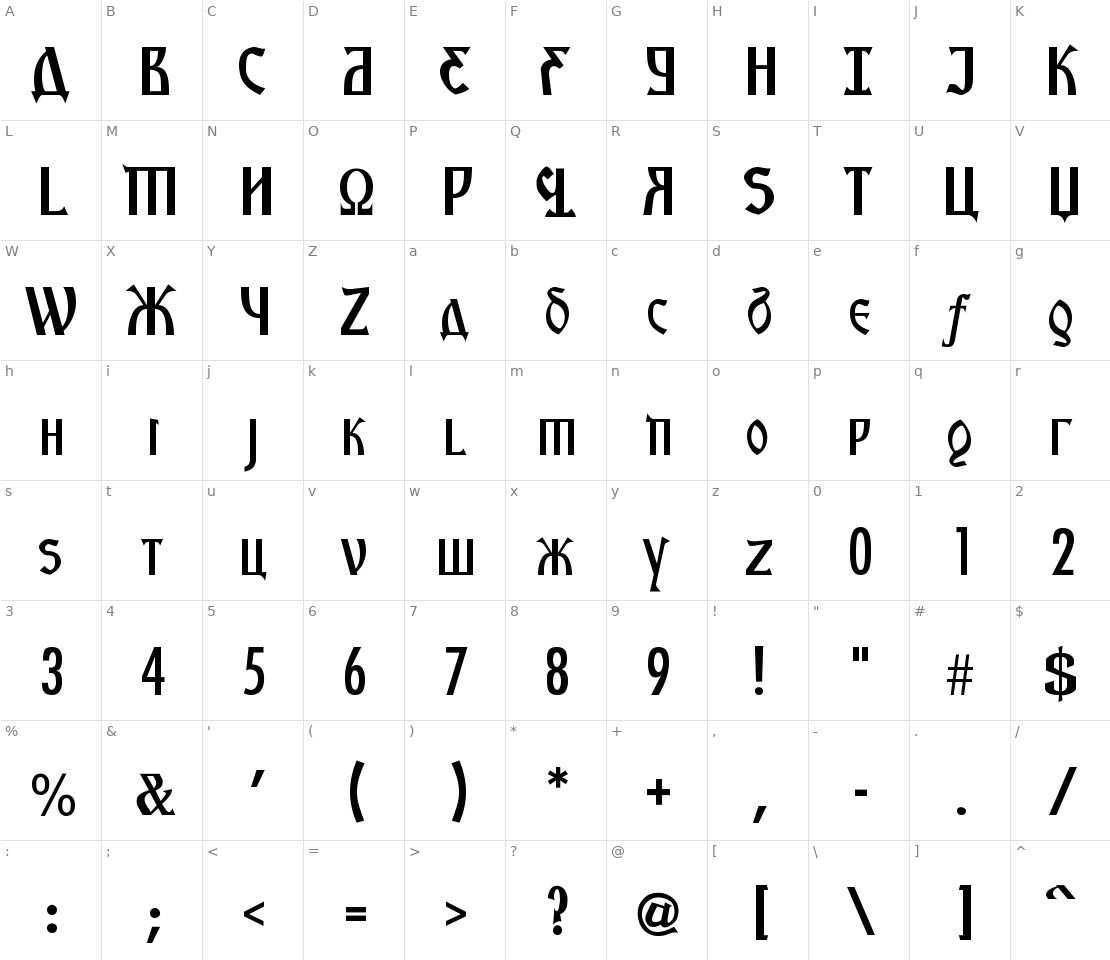
Kremlin Starets
Kremlin Starets is a condensed gothic display face from Bolt Cutter Design that fuses medieval blackletter structure with angular, Slavic-influenced letterforms. The result feels both dark and distinctly Russian, with sharp verticals and tight spacing that give it a brooding, authoritative presence. Built for headlines, posters, and display work where you want something that reads as heavy, historical, and a little menacing.